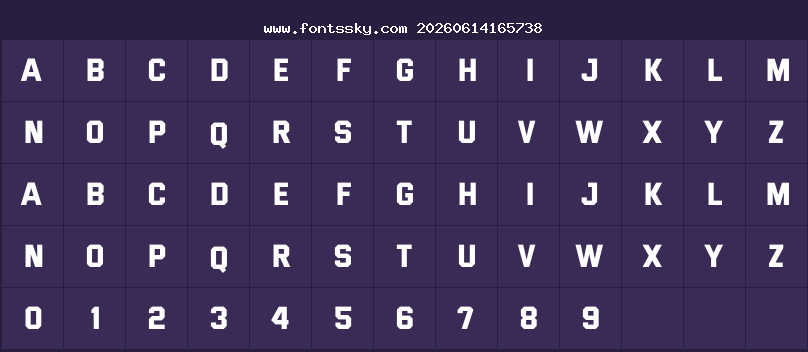
Versa Versa Preview
• Font Name: Versa Versa
• Full Font Name: Versa Versa
About Versa Versa.otf
Versa Versa.otf is a modern, elegant sans-serif font designed for ultimate readability and visual harmony. Perfect for branding, headlines, web design, and print materials.